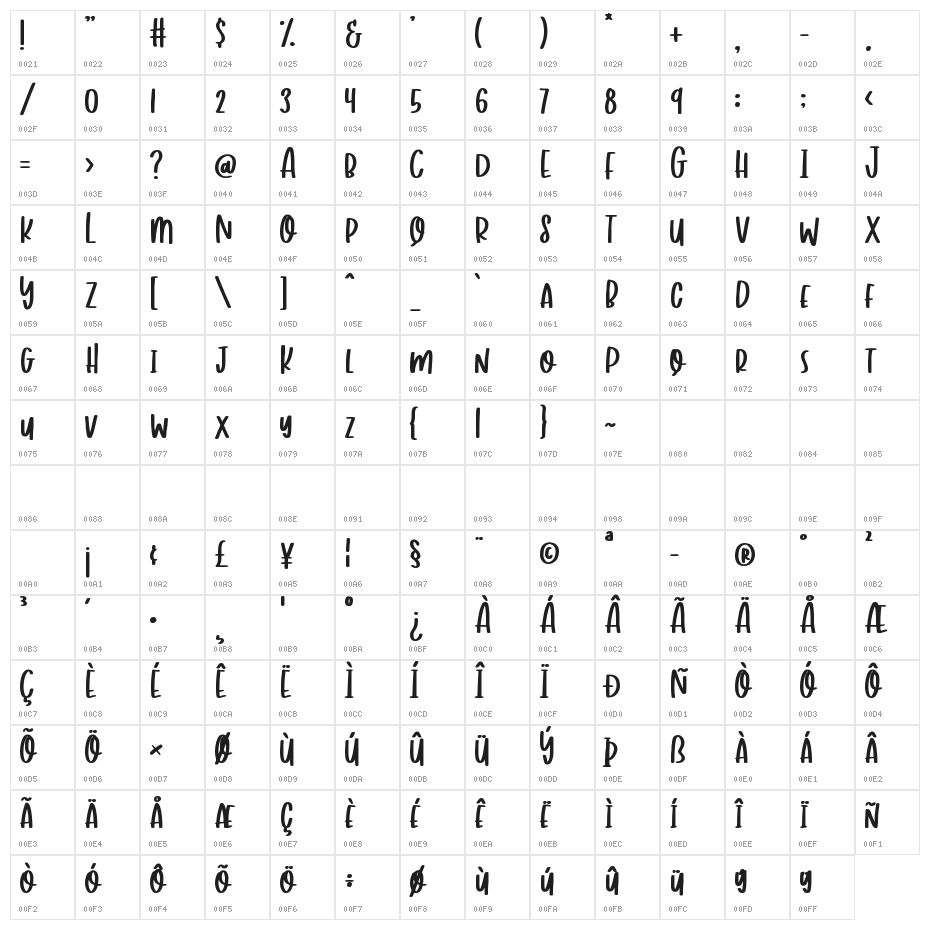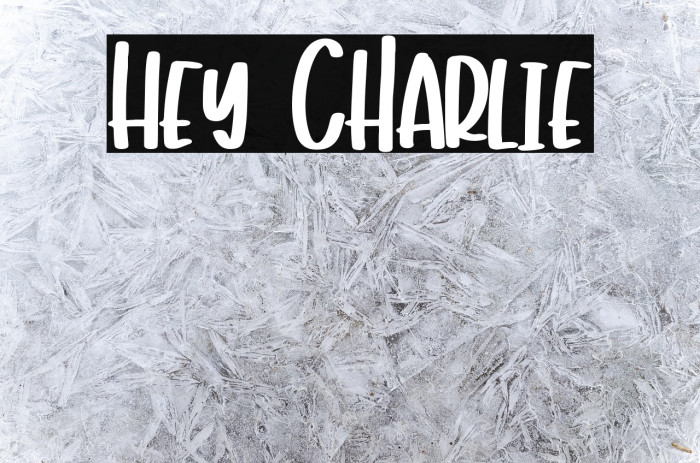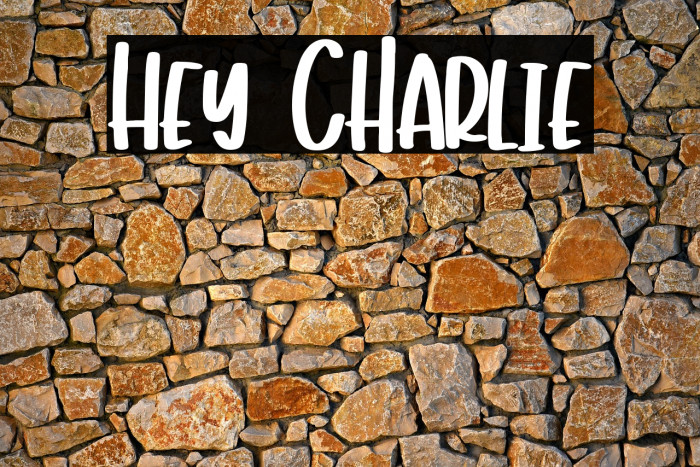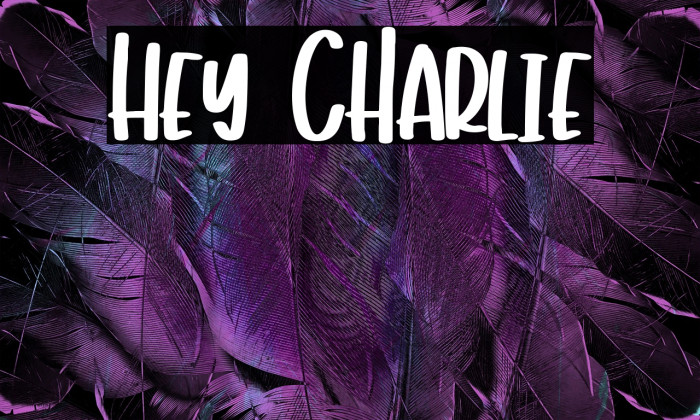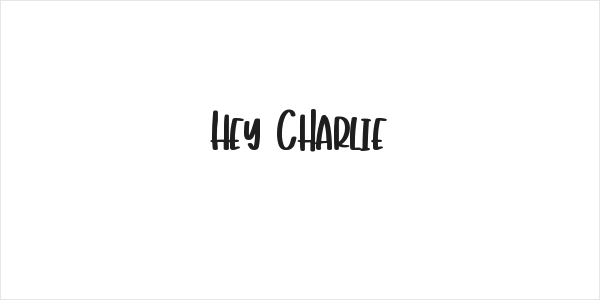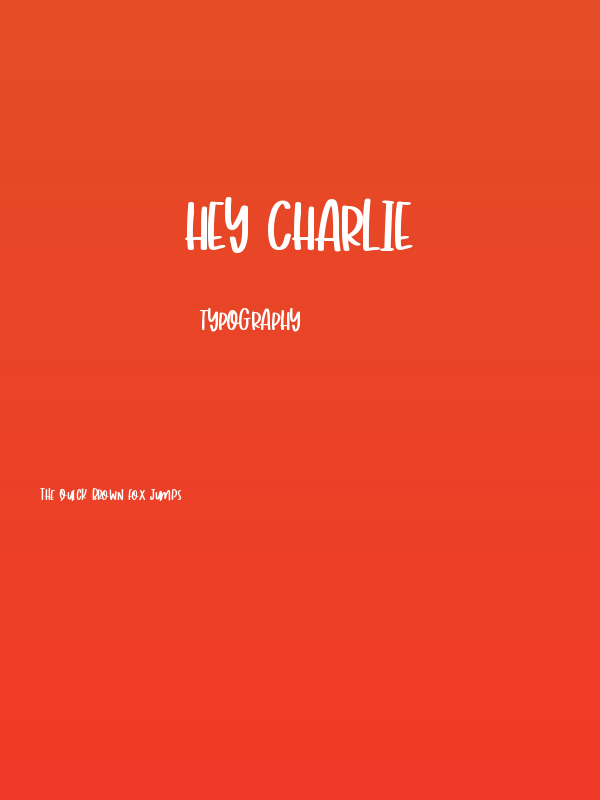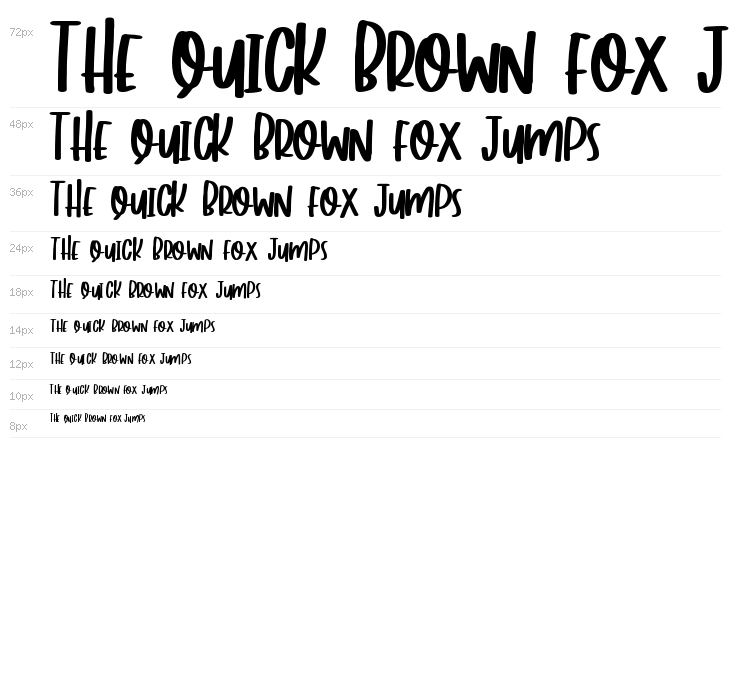
Hey Charlie Font
Hey Charlie Description
This font features a playful and energetic handwritten style, characterized by its bold and flowing letterforms. The uppercase and lowercase letters maintain a consistent height, creating a uniform appearance. The strokes are thick and rounded, giving the font a friendly and approachable feel. The numbers and special characters are designed to match the overall style, ensuring cohesion across all elements. This font's lively and informal nature makes it suitable for projects that require a personal touch or a casual vibe.
| Overall Style | Playful |
| Use Case | Logos, Headlines, Social media graphics |
| Proposed Projects | Ideal for greeting cards, children's books, playful branding, and social media graphics. |